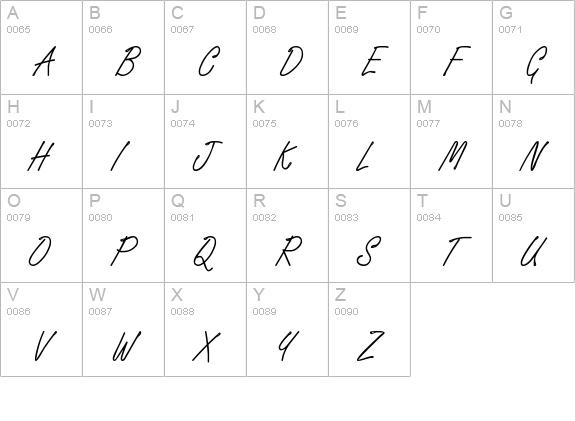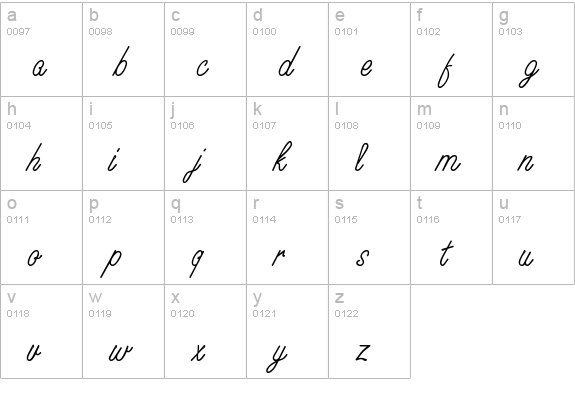
WhisperWrite Medium Font Details
WhisperWrite Medium is a balanced, medium-weight variant in the WhisperWrite typeface family \xE2\x80\x94 well suited to sub-headlines, navigation, and balanced editorial work.
Introducing WhisperWrite Medium font, a beautifully crafted typeface designed to elevate your typography game. With its sleek and modern aesthetics, this font effortlessly combines elegance with readability, making it the perfect choice for a wide range of design projects. WhisperWrite Medium font boasts a unique blend of soft curves and sharp edges, creating a harmonious balance that catches the eye and draws the reader in. Its medium weight strikes the perfect equilibrium between boldness and subtlety, allowing your text to make a statement without overpowering the overall design. One of the best features of WhisperWrite Medium font is its versatility. Whether you're working on a logo, branding materials, websites, print media, or any other creative endeavor, this font adapts effortlessly to various design concepts and themes. It adds a touch of sophistication and professionalism to any project, making it a reliable choice for designers of all backgrounds. But what sets WhisperWrite Medium font apart is not just its striking aesthetics, but also its accessibility. We believe that great design should be available to everyone, and that's why we're thrilled to announce that this font is freely available to download at FontsMarket.com. Yes, you read that right – this premium font can be yours without spending a dime. FontsMarket.com, a reputable online platform renowned for its extensive collection of high-quality fonts, offers WhisperWrite Medium font as part of their commitment to empowering designers with the tools they need to bring their creative visions to life. With just a few clicks, you can enhance your design arsenal with this remarkable font and unleash your creativity without breaking the bank. So why wait? Download WhisperWrite Medium font today and let your designs speak volumes with its timeless elegance and undeniable charm. Whether you're a seasoned designer or a passionate novice, this font will undoubtedly become an essential element in your creative toolbox. Embrace the free-spirited nature of design and elevate your typographic prowess with WhisperWrite Medium font – the perfect blend of beauty, functionality, and accessibility.